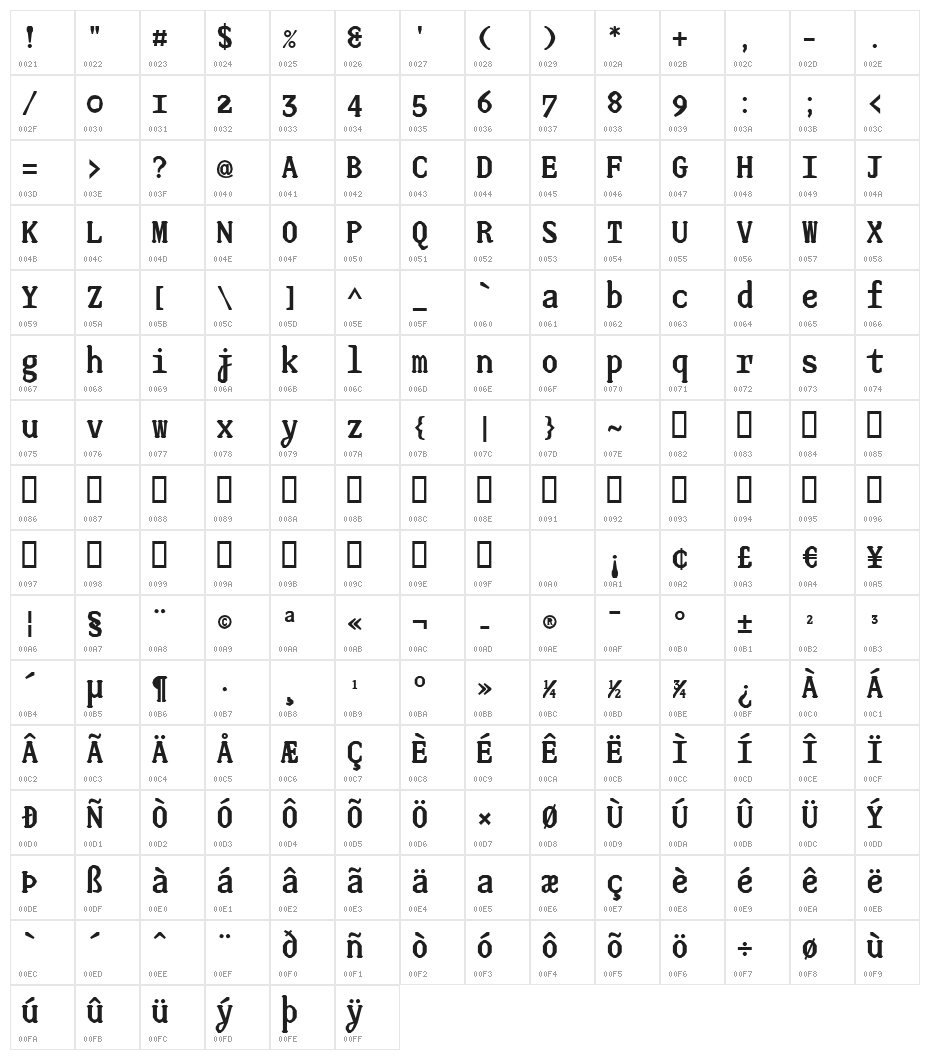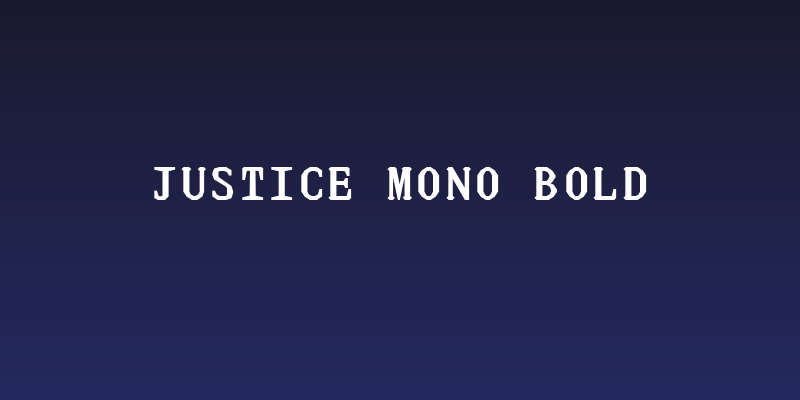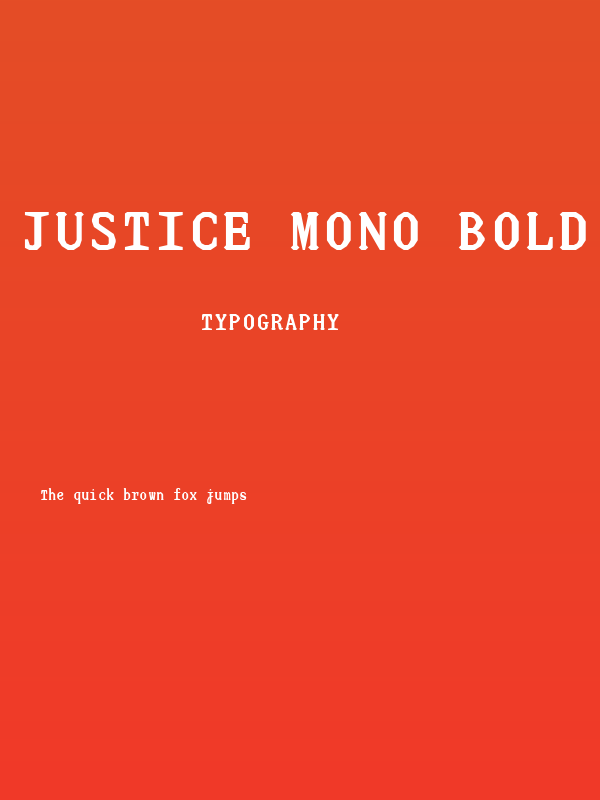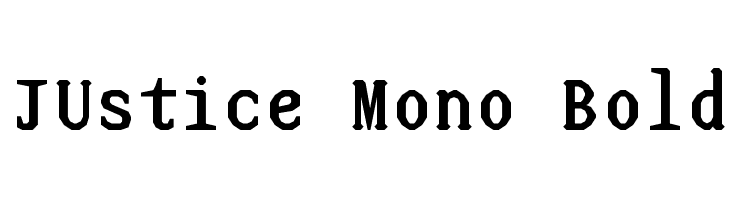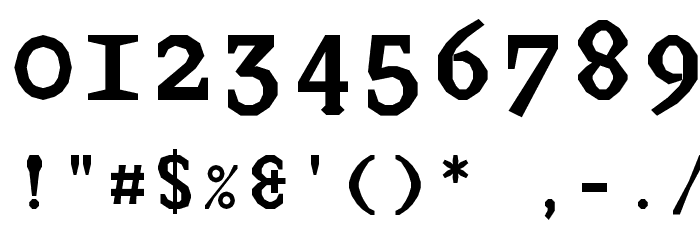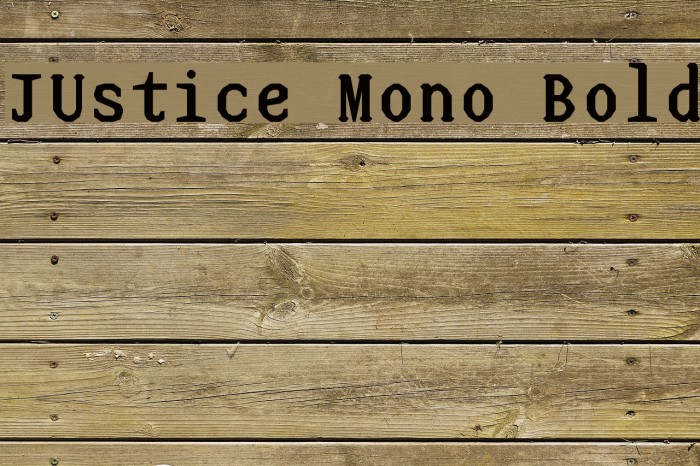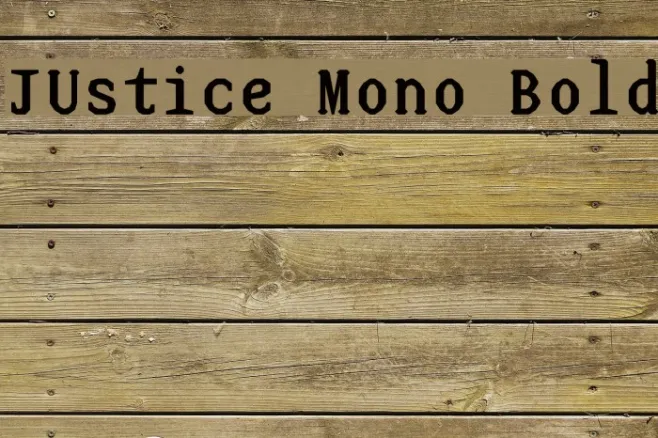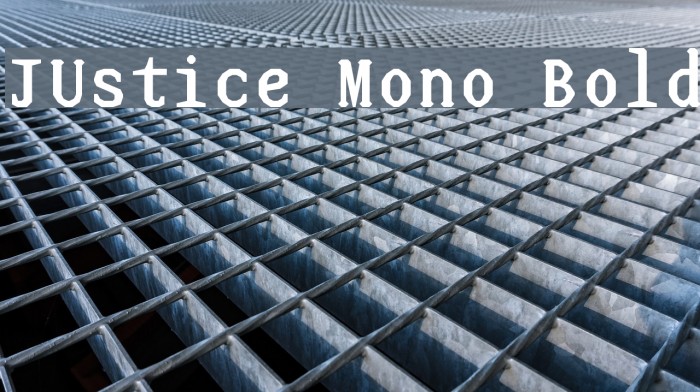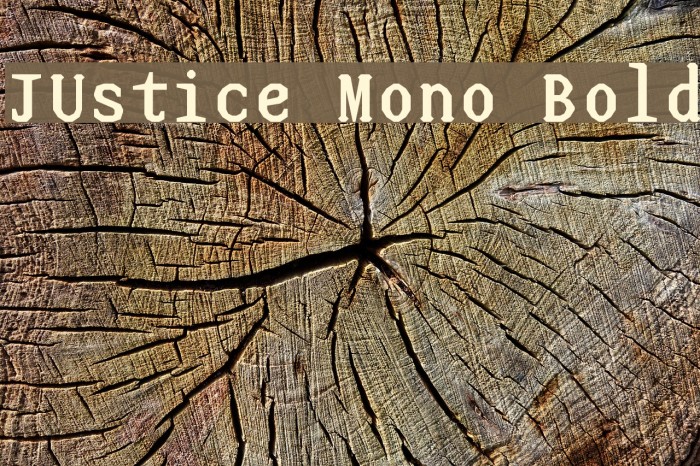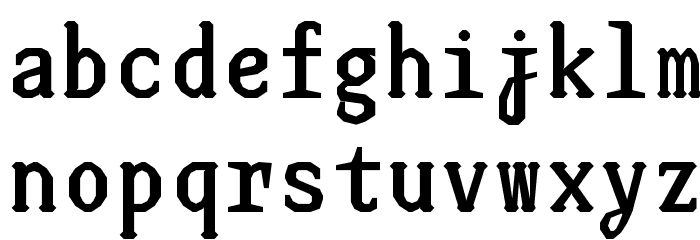
JUstice Mono Bold Font
JUstice Mono Bold Description
This font is a monospaced typeface characterized by its bold and structured appearance. Each character occupies the same amount of horizontal space, which is typical for monospaced fonts. The design features a strong geometric structure with consistent stroke widths, giving it a robust and mechanical feel. The uppercase letters are tall and commanding, while the lowercase letters maintain a uniform height, contributing to a clean and orderly look. The numerals are distinct and easily readable, making them suitable for coding and tabular data. Special characters are clearly defined, enhancing the font's utility in technical and digital environments.
| Use Case | Coding, Technical documentation, Digital interfaces |
| Proposed Projects | Ideal for coding, technical documentation, and digital interfaces where clarity and uniformity are essential. |